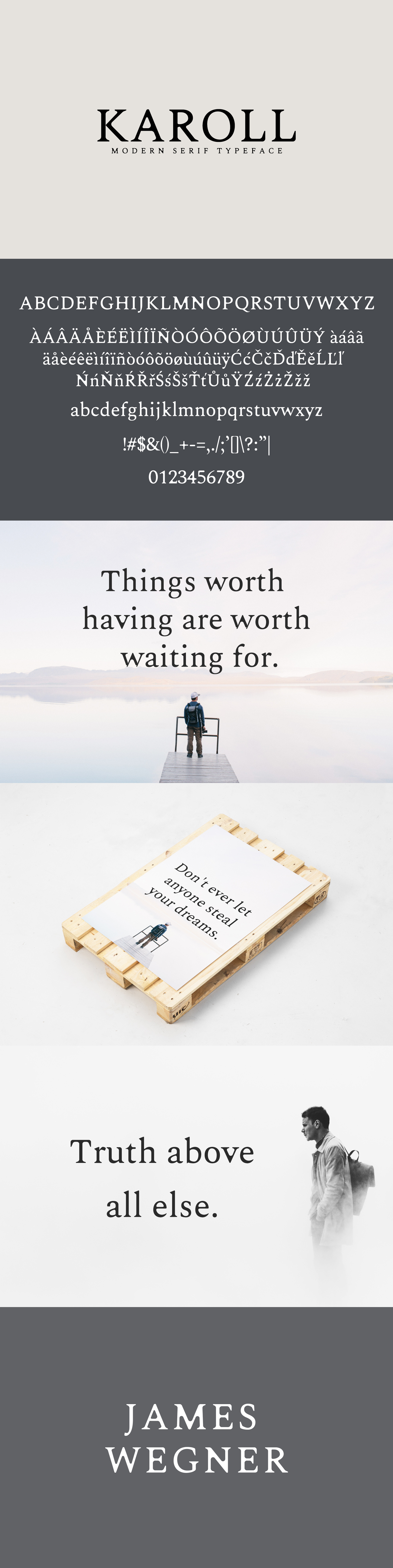
Karoll Modern Serif Font Family
Karoll is a vintage inspired sophisticated, sleek lines serif font typeface. It includes all basic glyphs with Non-English characters. This font will pair beautifully with the display, signature, sans serif, script, or handwriting style fonts. It is best for logo, headlines, posters, quotes, advertising, titles, magazines headings, web layouts, invitations, packaging design, books, branding, and nearly any creative design.
- Font Weight: Light, Round and Bold
Karoll Font Features:
- Uppercase Multilingual Letters
- Lowercase Multilingual Letters
- Non English Characters ( Latin Supplement + Latin Extended A)